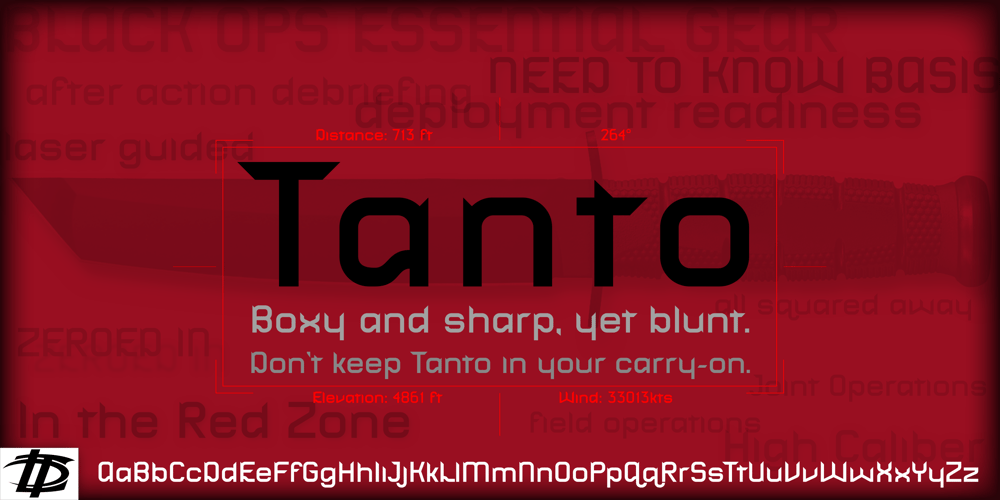
Tanto Font Family was designed by published by Lomax Design. Tanto contains 1 styles and family package options. Tanto is a boxy, futuristic sans-serif that is not directly inspired by any particular typestyle, but is more of an exploration of shapes. It has a very modern feel and although very geometric, still has a character that’s not robotic.